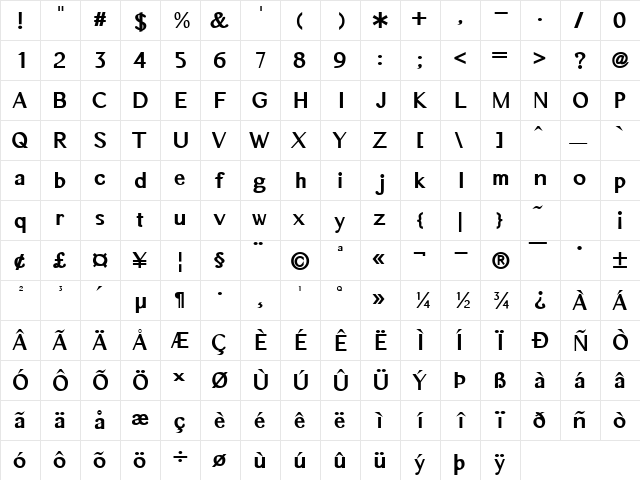
Ballymun RO Bold
| Designer | Ronald B. Ogawa |
Design Context for Ballymun RO Typeface
Ballymun RO takes a measured approach to typography — its balanced proportions and neutral character make it a reliable workhorse for both digital and print work. The heavy weight commands attention and anchors typographic hierarchies.